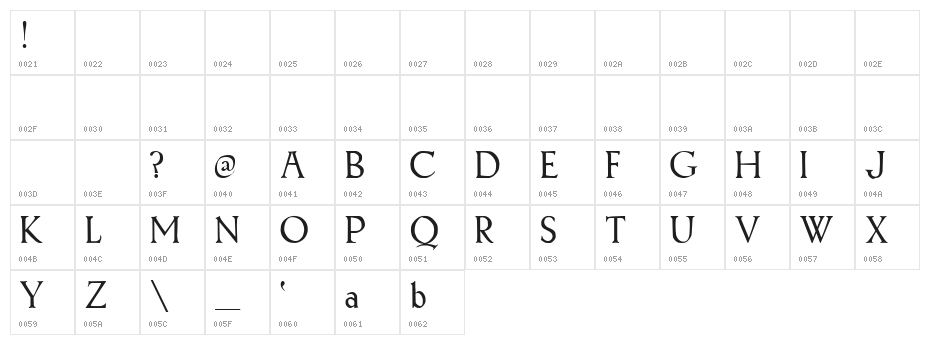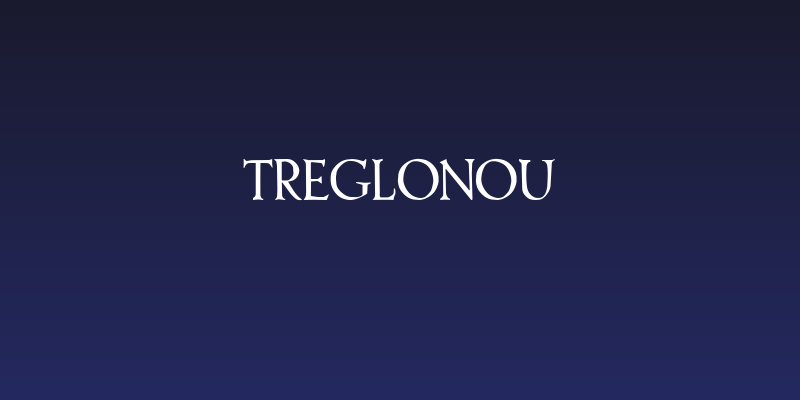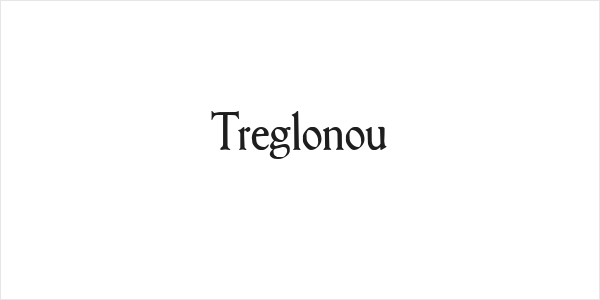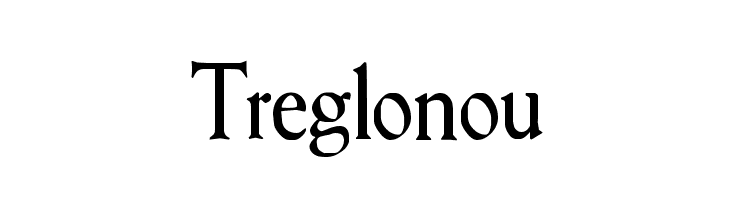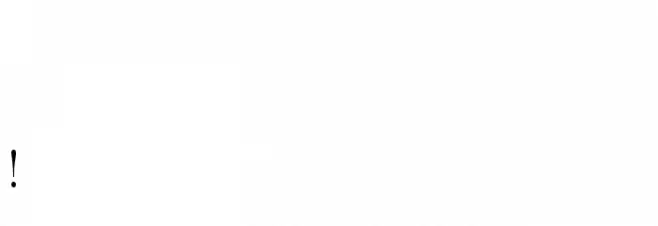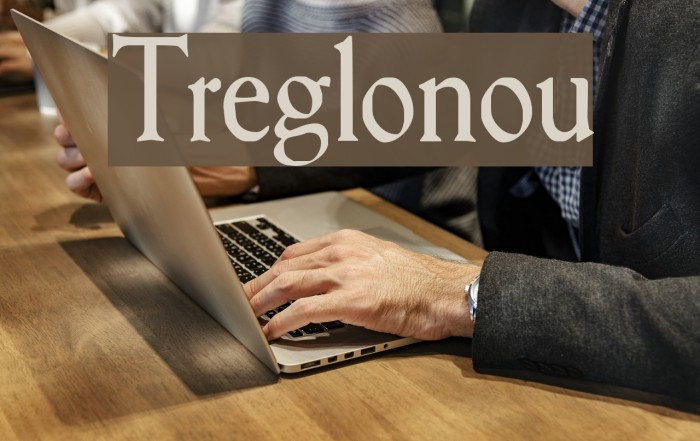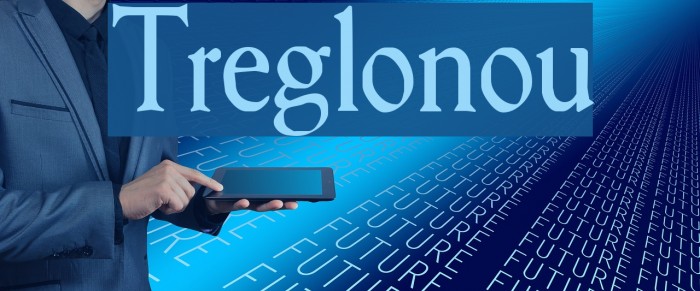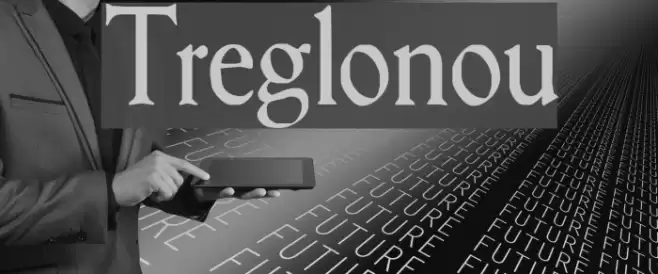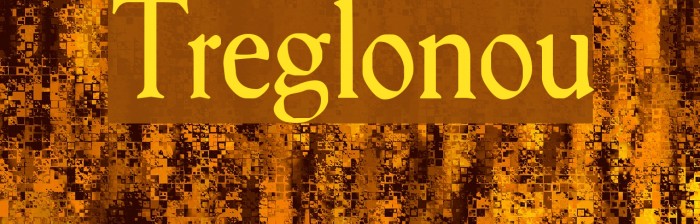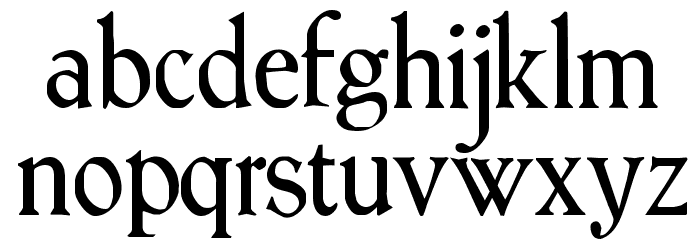
Treglonou Font
Treglonou Description
This font features a distinctive and elegant serif style with a classic touch. The uppercase letters are characterized by sharp, pointed serifs and a slightly condensed form, giving them a sophisticated and formal appearance. The lowercase letters maintain a consistent style with the uppercase, featuring smooth curves and a balanced weight distribution. The overall design is harmonious, with a moderate contrast between thick and thin strokes, enhancing readability while retaining a decorative flair. The font's unique character is further emphasized by its slightly elongated vertical lines and subtle curves, making it suitable for a variety of design applications.
| Categories | Formal |
| Width | Condensed |
| Overall Style | Classic |
| Use Case | Headlines, Body text, Logos |
| Proposed Projects | Ideal for book covers, formal invitations, branding, and editorial design. |